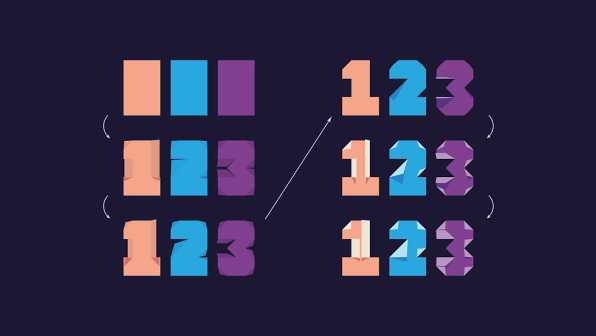
We’ve talked a lot about logos in the past, highlighting the fact that a logo can’t just be designed for print anymore, that it needs to work as well for an email footer as a TV commercial as an animated banner ad. So if we all expect logos to be multimedia savants, why aren’t we asking the same flexibility from our typefaces? Because when is the last time you printed something on paper?
Animography is a collection of animated typefaces curated by Jeroen Krielaars that can be licensed as you would any other. And while we all have our stereotypes of what animated text can be–local commercials of monster truck rallies come to mind–they’re a far cry from the hokey flaming letters of LiveType. Instead, Krielaars has constructed what might be called “classic” animated glyphs for words that could look as professional in print as they do in video.
They’re also a whole lot more flexible than existing Livefonts. While Apple’s solution is a collection of tweakable pre-rendered QuickTime files, Animography typfaces are deeply customizable After Effects files, meaning an editor can adjust line thickness, duration, easing, wiggle, color–and do so within one of the richest pieces of post-production software in the industry.
“I think this is very important,” Krielaars tells Co.Design. “There aren’t many animated typefaces to go around yet, and you don’t want to see the exact same title-animation more than once.”
It’s a dichotomous balance that’s still undefined in the industry: How do you create a marketable animated typeface that has a core identity without becoming too predictable for the masses? No one would question Charles Schwab and Merrill Lynch both using Times New Roman in a commercial, but if Charles Schwab’s Times New Roman flew on the screen in the exact same pattern it flew on the screen over at Merrill Lynch, suddenly it’d feel like the exact same ad.
“From my perspective, this is a really cool thing to work on or use, but I don’t think it will ever be standardized for each font,” Krielaars admits, adding that he’s really only selling Animography to a “relatively small group of motion/typography nerds.”
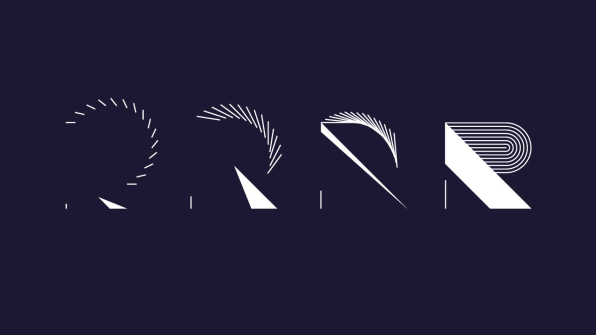
I’m not so sure that I completely agree with Krielaars that the industry won’t find accepted standards for animated fonts. But it does seem like part of that standard will involve a certain malleability. Just as we’ve long tweaked kerning and line thickness in print, the animated texts of tomorrow will have their own (new) language of conventional adjustments. And so long as there’s a proper flame height and explosion radius adjuster, that certainly works for me.